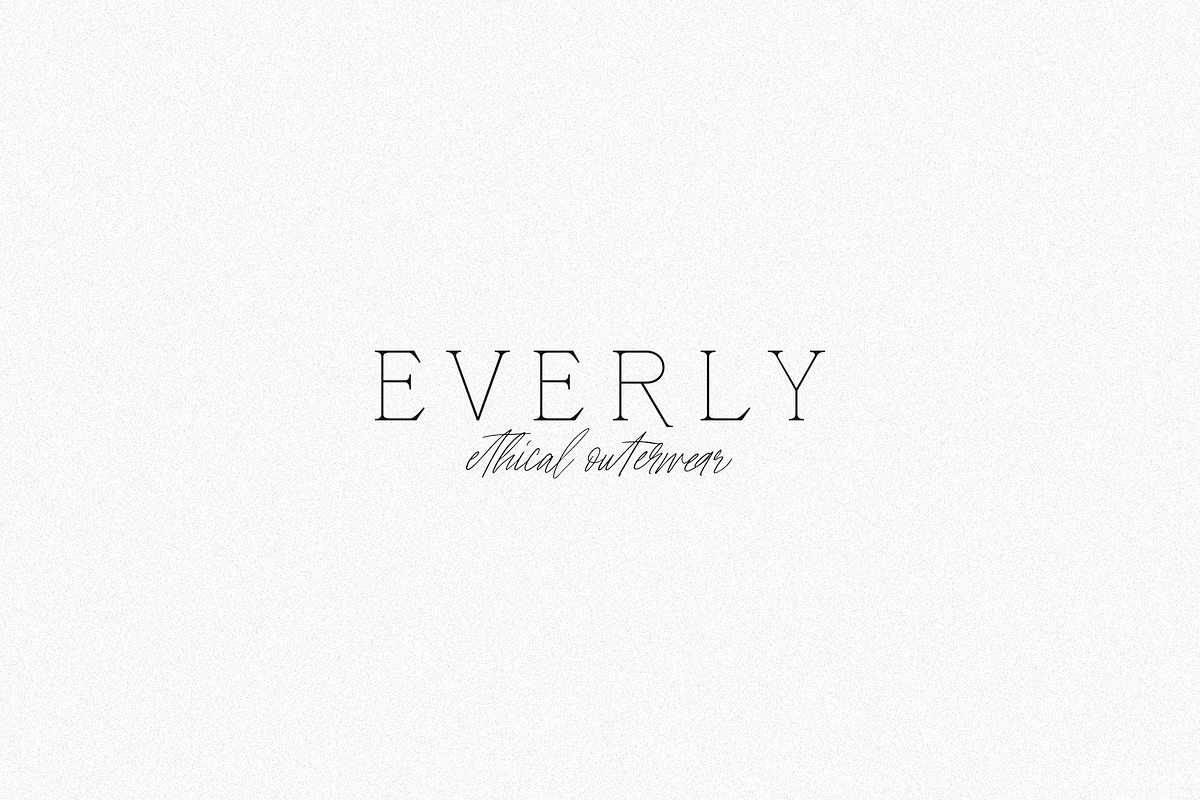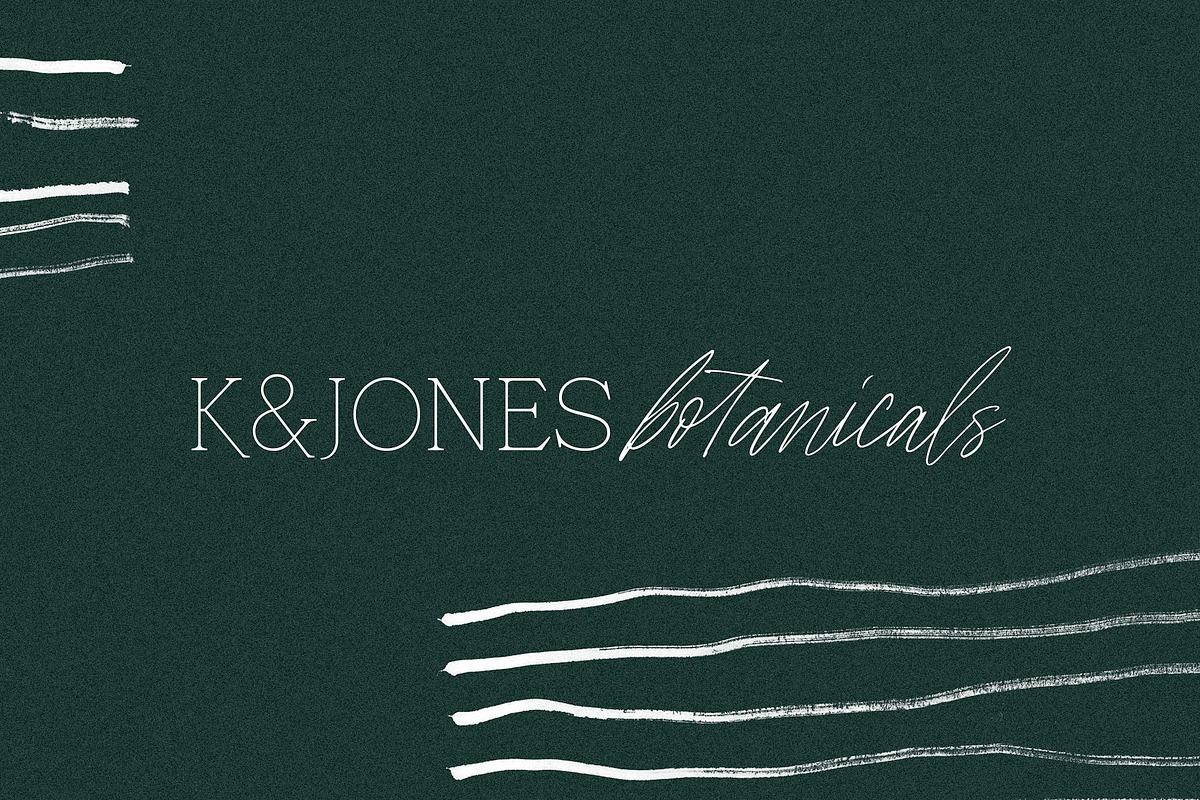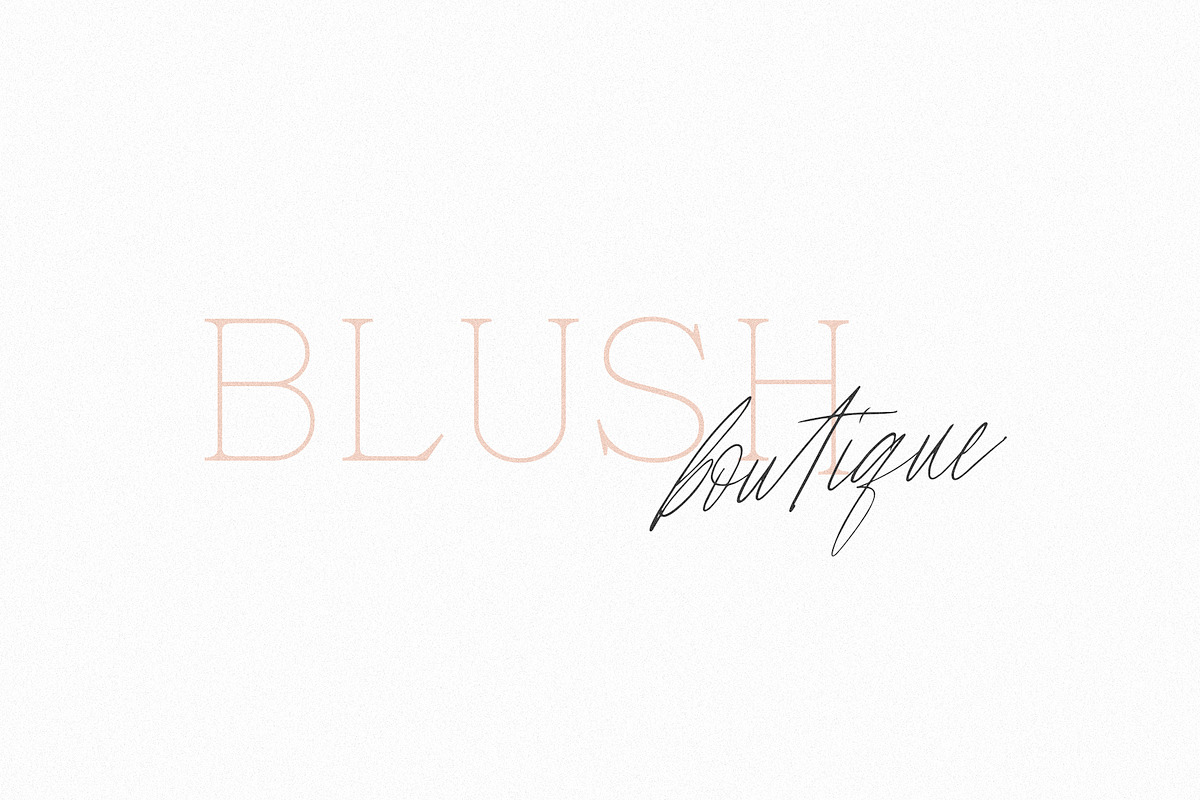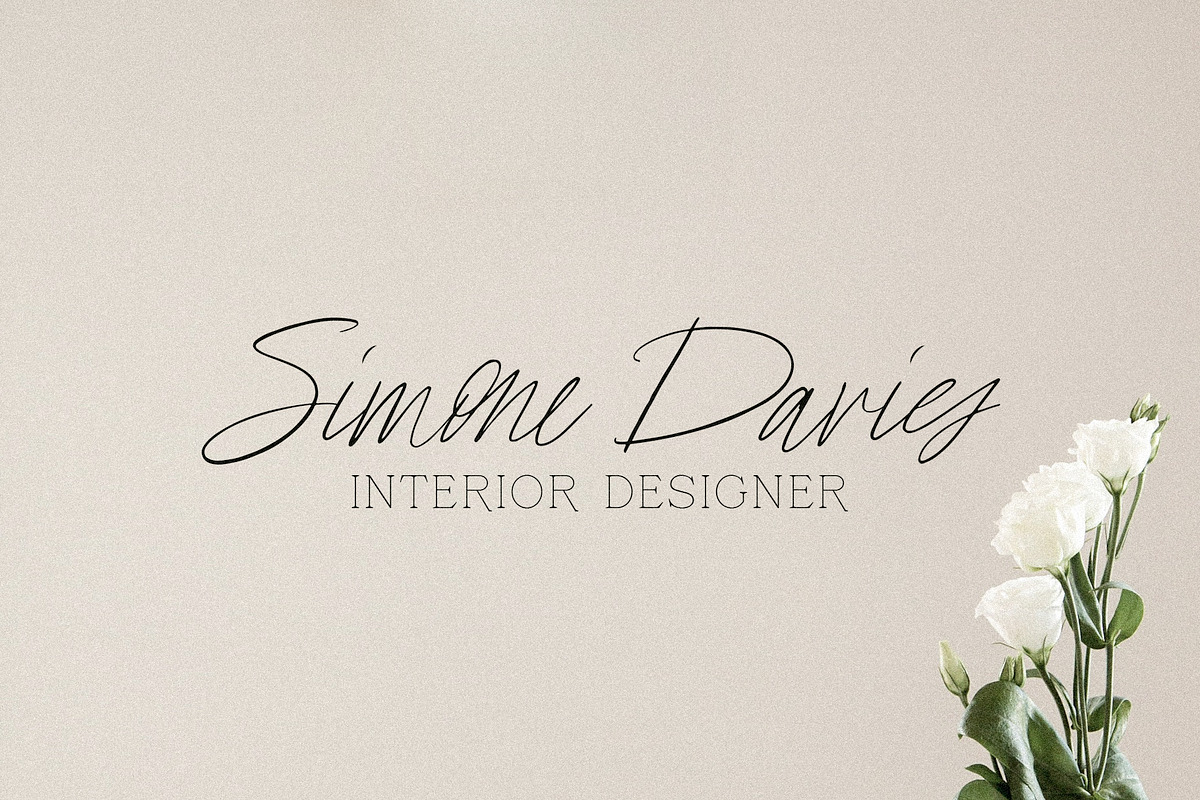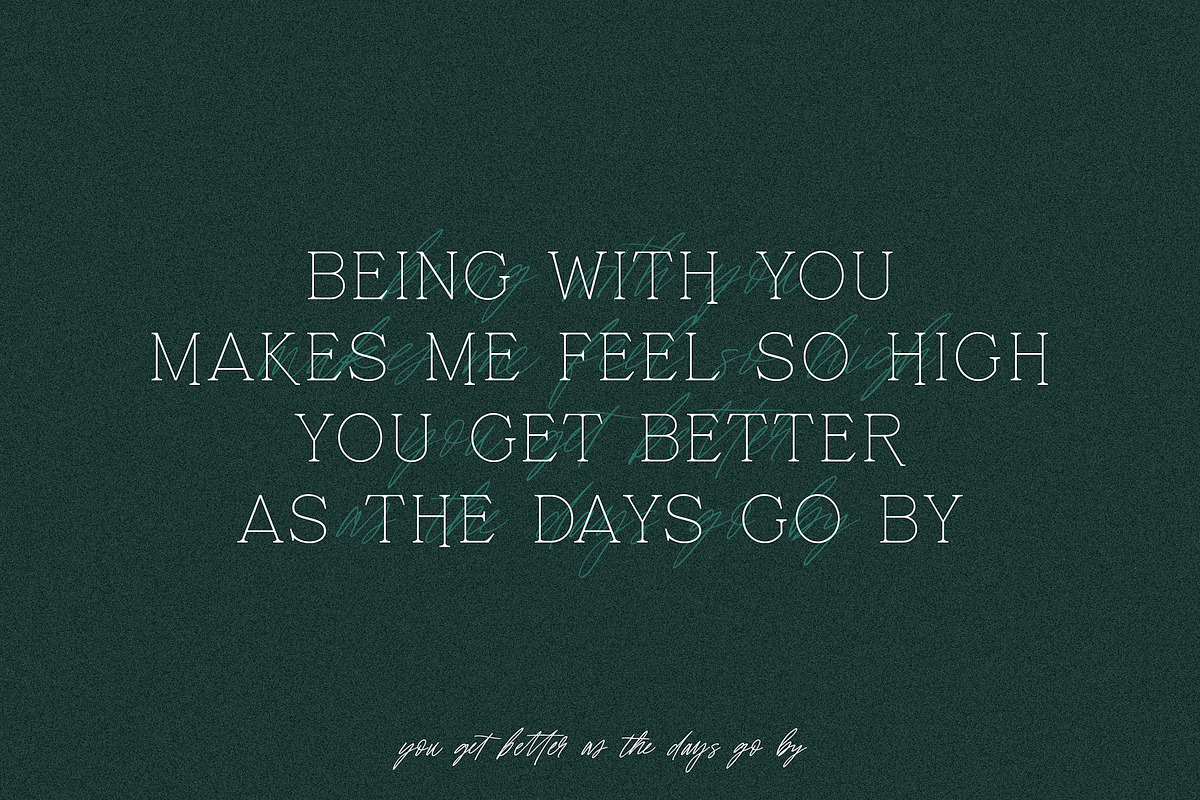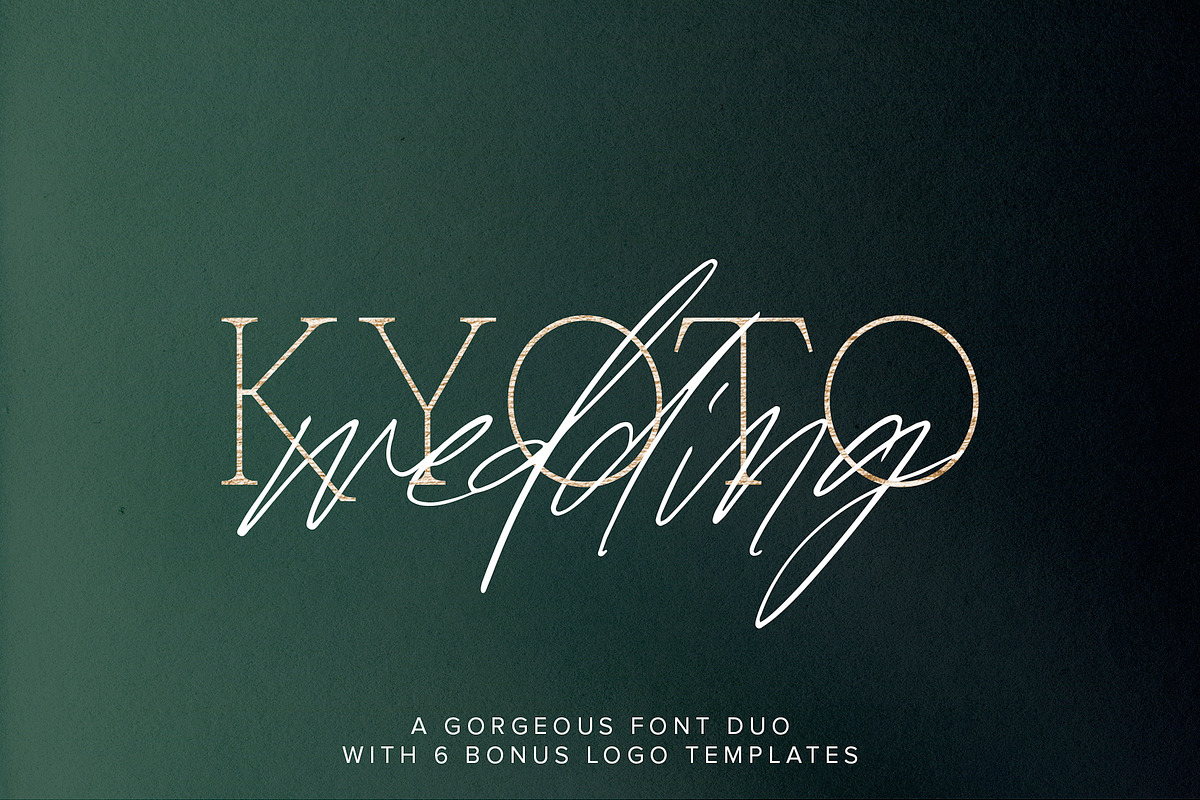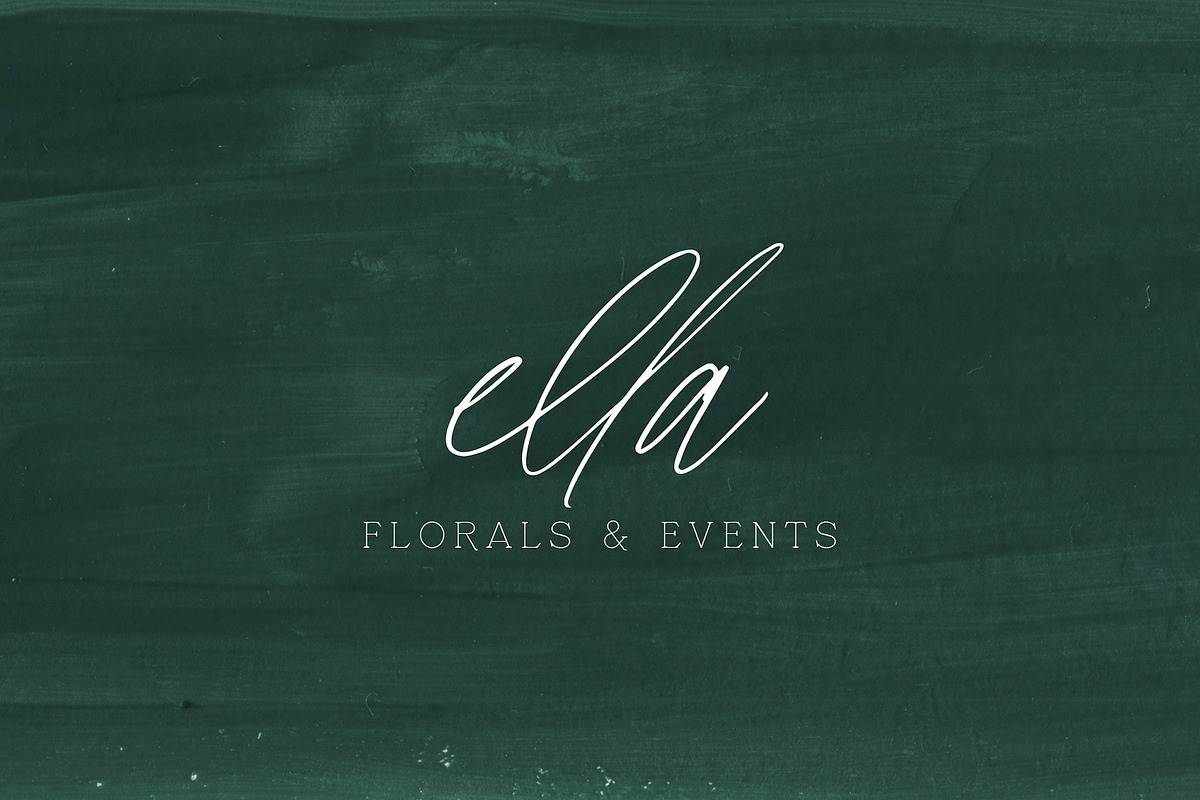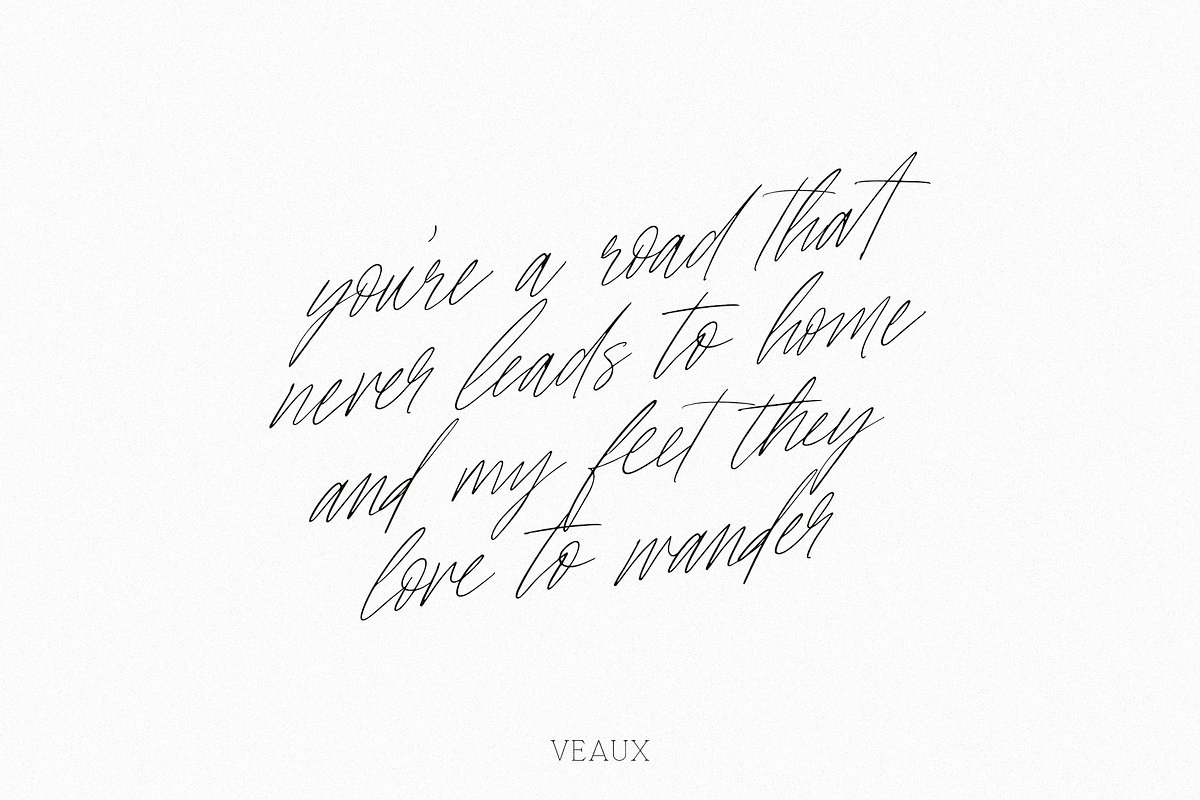
Kyoto Wedding Font Duo w/ Extras
Kyoto Wedding is a gorgeous serif and script font duo, perfectly paired for weddings and special events. The serif has a stunning fairytale quality that perfectly complements the messy script (which includes a massive 117 ligatures!).
This pair looks amazing on wedding invitations, signage, quotes, and even websites! Test it out in the sample box above to see how your company name, wedding date, or favorite quote will look using Kyoto Wedding!
- The serif has a stunning fairytale quality that perfectly complements the messy script (which includes a massive 117 ligatures!).